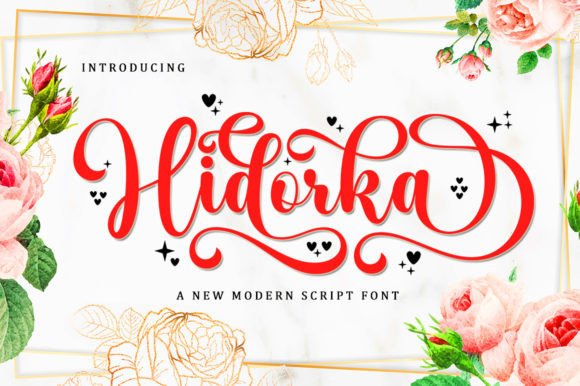
Hidorka Font: The Ultimate Elegant and Unique Handwritten Font
In the world of typography, a good font can make all the difference in elevating your creative project to the next level. Introducing Hidorka Font, a cute, elegant, and unique handwritten font that is expertly designed to become a true favorite among designers and creative enthusiasts alike. With its sleek, clean, feminine, sensual, and glamorous style, Hidorka Font is the perfect choice for those looking to add a touch of sophistication and luxury to their designs.
The Characteristics of Hidorka Font
Hidorka Font is a beautifully crafted handwritten font that boasts a range of characteristics that make it stand out from the rest. Its classic style is reminiscent of traditional calligraphy, yet it has a modern twist that makes it highly readable and versatile. The font features luxurious letter joints that give it a smooth and elegant appearance, making it perfect for use in formal and informal designs.
Sleek and Clean Design
One of the standout features of Hidorka Font is its sleek and clean design. The font’s lines are smooth and flowing, with a subtle elegance that makes it perfect for use in a variety of design applications. Whether you’re creating a logo, invitation, or advertisement, Hidorka Font is sure to make a lasting impression.
Feminine and Sensual Style
Hidorka Font is also characterized by its feminine and sensual style, making it a great choice for designers looking to create elegant and sophisticated designs. The font’s curves and lines are carefully crafted to evoke a sense of luxury and glamour, perfect for use in high-end branding and advertising campaigns.
Glossy and Readable
Another key feature of Hidorka Font is its high readability. The font’s luxurious letter joints and smooth lines make it easy to read, even at small sizes. This makes it perfect for use in body text, as well as in headlines and titles.
Uses of Hidorka Font
With its versatility and elegance, Hidorka Font can be used in a wide range of design applications. Here are some of the many uses of this beautiful font:
Invitations and Stationery
Hidorka Font is perfect for use in formal invitations, such as wedding invitations, birthday invitations, and other special occasion invitations. Its elegant and sophisticated style makes it also suitable for use in stationery, such as letterheads, envelopes, and greeting cards.
Logos and Branding
The font’s sleek and modern design makes it a great choice for logos and branding campaigns. Whether you’re creating a logo for a fashion brand, a beauty company, or a luxury goods provider, Hidorka Font is sure to make a lasting impression.
Menus and Packaging
Hidorka Font is also suitable for use in menus, packaging, and labels. Its elegant and sophisticated style makes it perfect for use in high-end restaurants, cafes, and food packaging.
Novels and Magazines
The font’s classic style and high readability make it a great choice for use in novels, magazines, and books. Whether you’re creating a fiction novel, a non-fiction book, or a fashion magazine, Hidorka Font is sure to be a great choice.
In conclusion, Hidorka Font is a beautiful and elegant handwritten font that is perfect for designers and creative enthusiasts looking to add a touch of sophistication and luxury to their designs. With its sleek and clean design, feminine and sensual style, and high readability, Hidorka Font is sure to become a true favorite. Whether you’re creating a logo, invitation, or advertisement, Hidorka Font is the perfect choice.
Here are some frequently asked questions about Hidorka Font:
What is Hidorka Font?
Hidorka Font is a cute, elegant, and unique handwritten font that is expertly designed to become a true favorite among designers and creative enthusiasts alike.
What are the characteristics of Hidorka Font?
Hidorka Font is characterized by its sleek and clean design, feminine and sensual style, and high readability.
What can I use Hidorka Font for?
Hidorka Font can be used in a wide range of design applications, including invitations, logos, branding campaigns, menus, packaging, novels, magazines, and more.